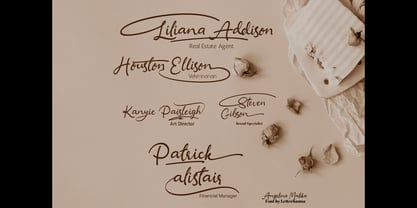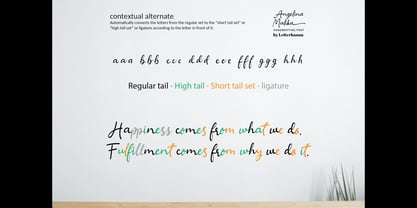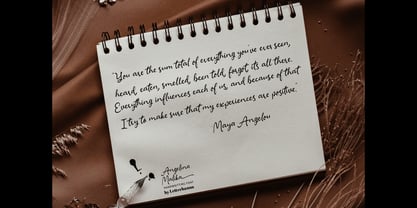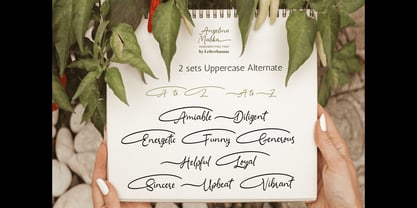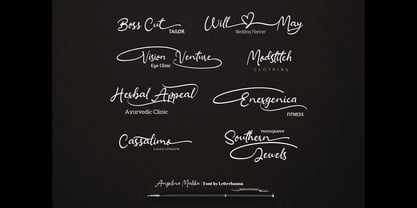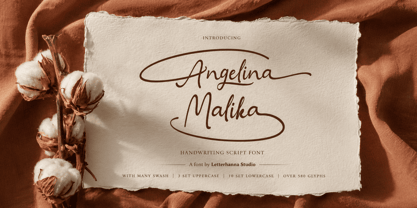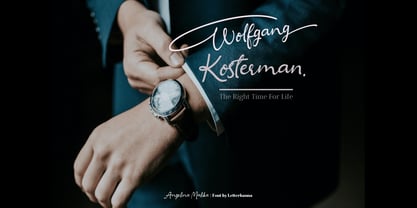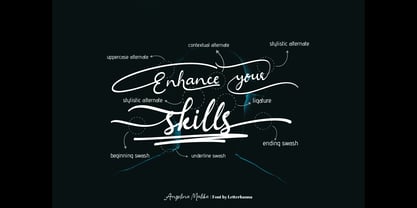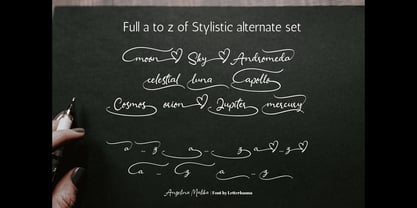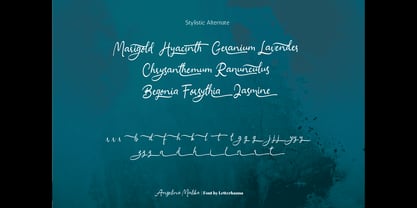
Angelina Malika
by Letterhanna Studio
The Angelina Malika Font Family was designed by Rinaldo Hasibuan and published by Letterhanna Studio. Angelina Malika contains 1 styles. More about this family
Angelina Malika was built to solve that problem. A bold calligraphic script that walks the line between formal and warm, between structured and free-flowing. It's the kind of font that makes clients say "yes, that's exactly it" before you've even finished the pitch.
Two lowercase alternate sets that shift automatically. Swashes for beginning and ending strokes. Full stylistic alternates. Underline swashes. PUA encoded for easy access in any app.
One font. Dozens of possible looks. Everything from elegant wedding invitations to powerful personal branding.
Designers: Rinaldo Hasibuan
Foundry: Letterhanna Studio